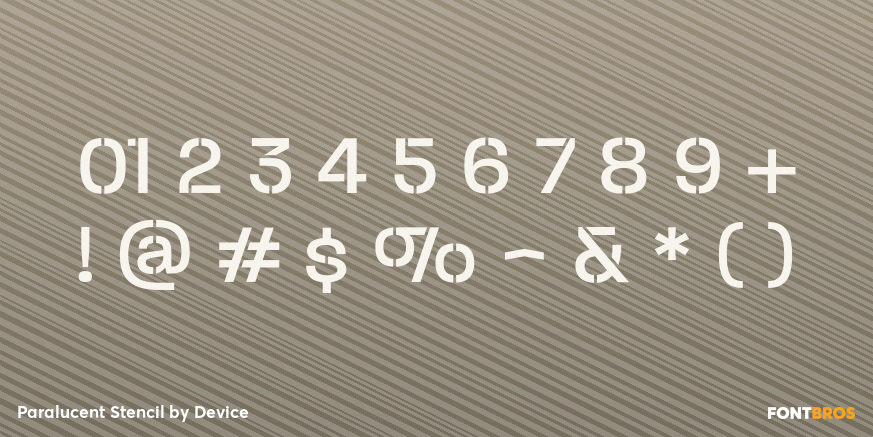
Paralucent Stencil
Paralucent Stencil is a sans serif stencil family with a clean, graphic presence and a distinctly industrial edge. The cutout letterforms give it a crisp, engineered look that feels bold without losing clarity, making it a strong choice when you want display type with structure and attitude.
Offered by Device as a family of 3 styles—Extra Light, Medium, and Heavy—it gives you room to move from airy, understated statements to more forceful headlines. That range makes it especially useful for posters, branding, packaging, signage, and other decorative display work where a sharp stencil effect can do the heavy lifting.